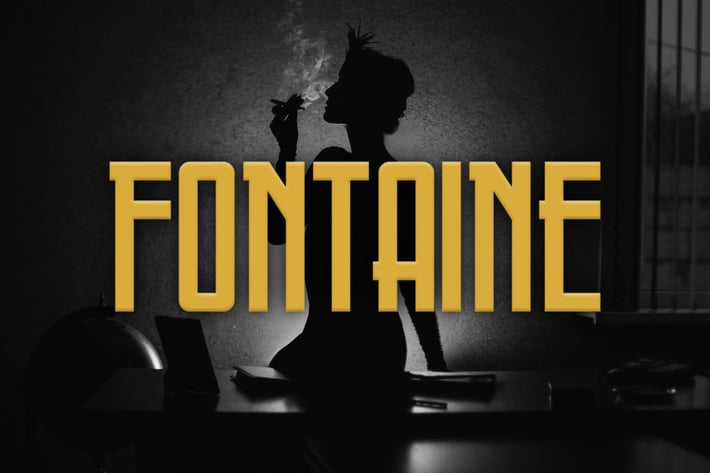
Fontaine Typeface
Fontaine is a typeface inspired by art deco style, detective stories, vintage headlines and ads. It includes uppercase letters, numerals and some punctuation.